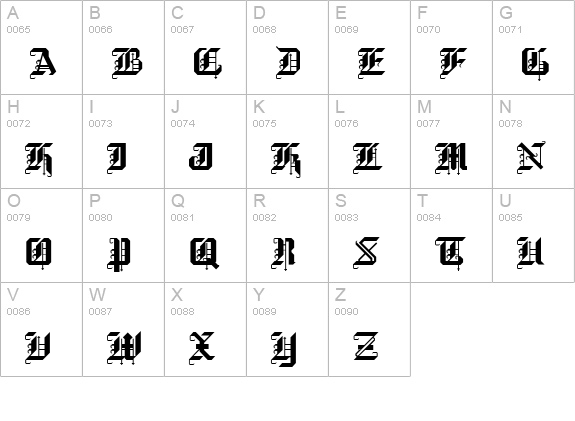
Black Forest Regular Font Details
Black Forest Regular is a maximum-weight, dramatic variant in the Black typeface family \xE2\x80\x94 well suited to maximum-impact headlines, posters, and packaging.
Black Forest Regular is a timeless font that exudes elegance and sophistication. Its classic design showcases a perfect balance of sharp lines and graceful curves, making it suitable for a wide range of design projects. Whether you are working on a formal invitation, a sleek logo, or a professional website, Black Forest Regular will effortlessly elevate your design to new heights. With its bold and distinctive letterforms, this font commands attention and leaves a lasting impression. Its versatility allows it to adapt to various design styles, from modern and minimalist to vintage and retro. The clean and legible characters ensure that your message is conveyed clearly and effectively, while maintaining a sense of style and professionalism. One of the best things about Black Forest Regular is that it is free! Yes, you read that right. This high-quality font is freely available to download at FontsMarket.com. This means that you can add a touch of sophistication to your designs without breaking the bank. Whether you are a professional designer or a hobbyist, this font is a valuable addition to your collection. Downloading Black Forest Regular from FontsMarket.com is quick and easy. Simply visit the website, locate the font, and with just a few clicks, it will be ready to use in your design projects. The font file is compatible with both Mac and Windows operating systems, ensuring that you can seamlessly integrate it into your workflow. So why wait? Embrace the timeless elegance of Black Forest Regular and take your designs to the next level. Download this free font from FontsMarket.com today and let your creativity soar.